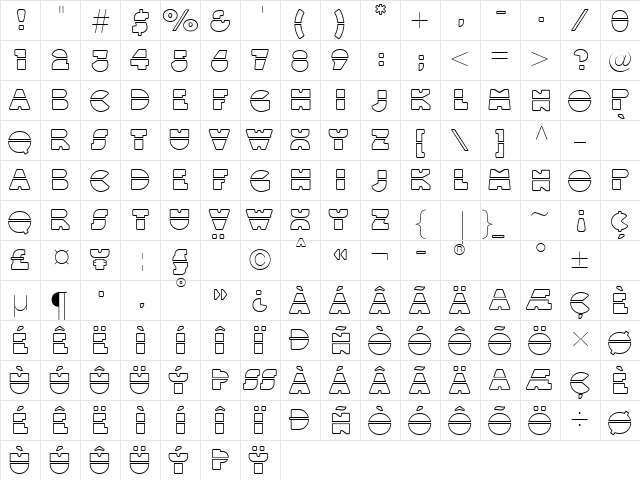
LTBlackWhiteOutLineLaser Black
Design Context for LTBlackWhiteOutLineLaser Typeface
LTBlackWhiteOutLineLaser is built around its visual character rather than neutral utility — its distinctive forms are designed to make an impression at display sizes.
Font Pairing: Pair with a clean neutral sans-serif for body copy to let LTBlackWhiteOutLineLaser's character lead without overwhelming the composition.
Pro Tip: Treat LTBlackWhiteOutLineLaser as the centrepiece of your typographic hierarchy. One strong heading set in a decorative face can carry an entire layout.